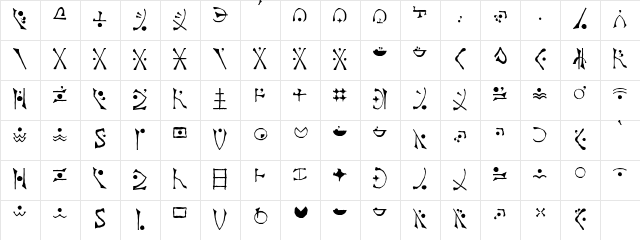
Complete En'Dankai Italic glyph index. Displaying only characters natively supported by En'Dankai Italic font.
En'Dankai is a composed and adaptable typeface that performs quietly and consistently across a wide range of design contexts. The slanted form adds forward momentum and visual energy.